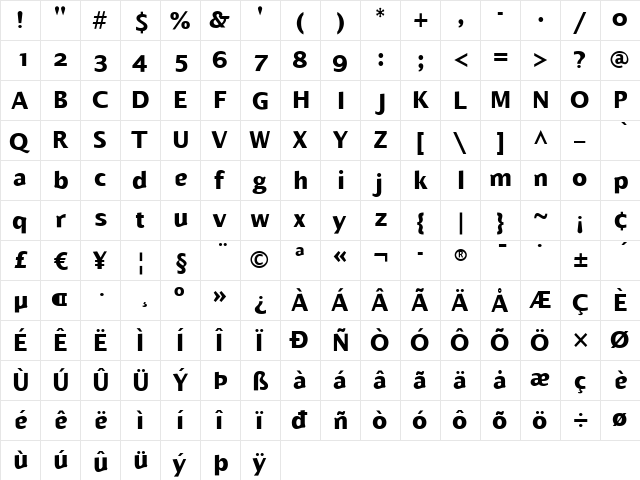
Alphabet2 Bold
Design Context for Alphabet2 Typeface
Alphabet2 is a composed and adaptable typeface that performs quietly and consistently across a wide range of design contexts. Its bold stroke weight gives it real presence on the page.